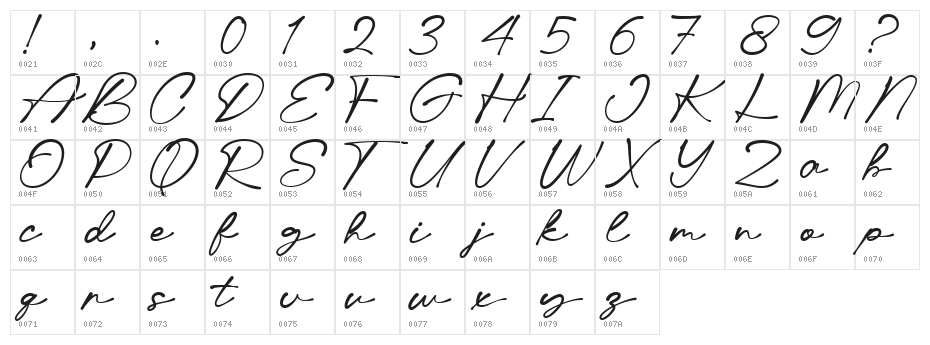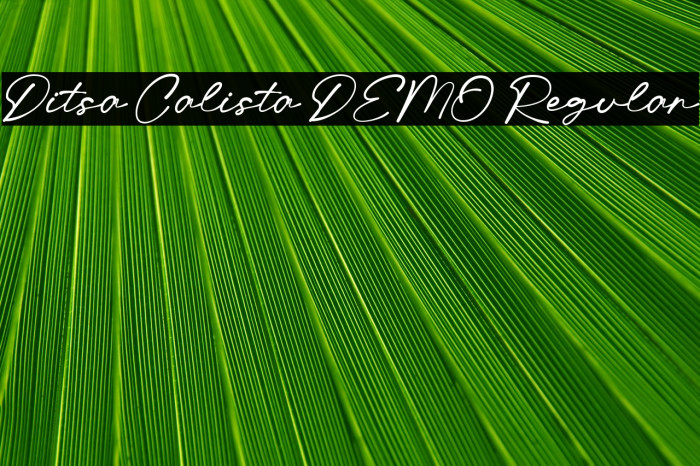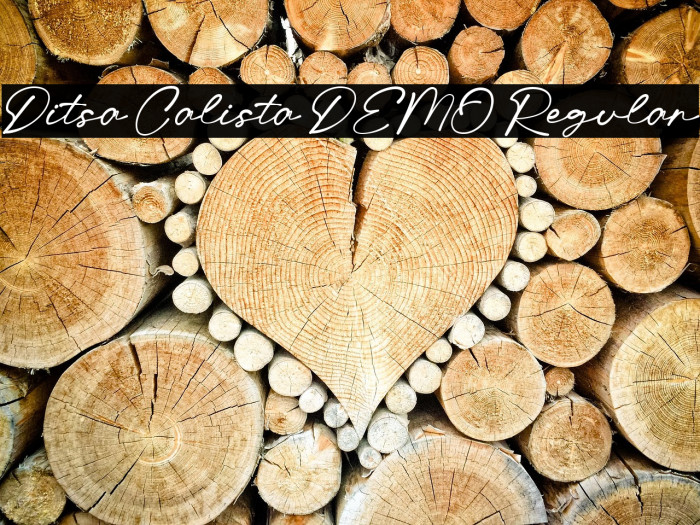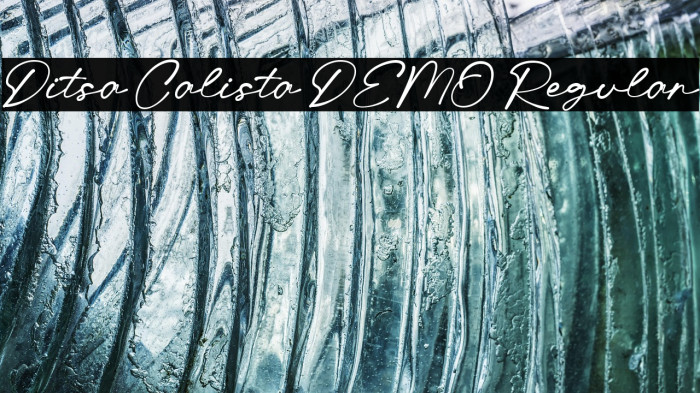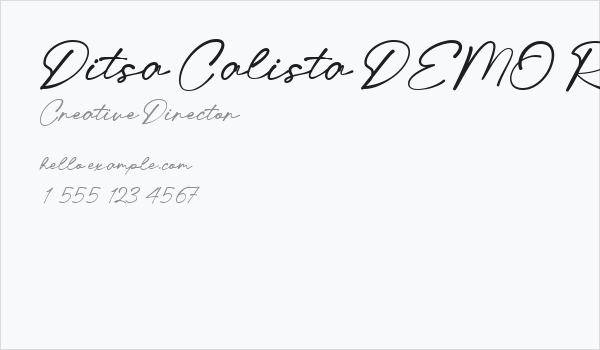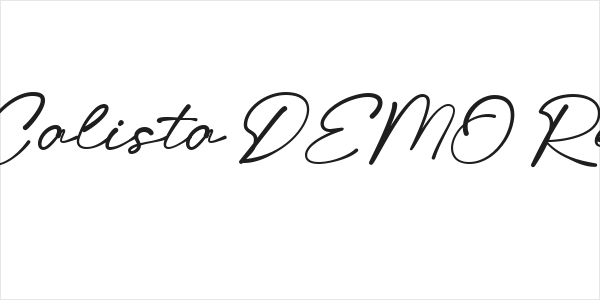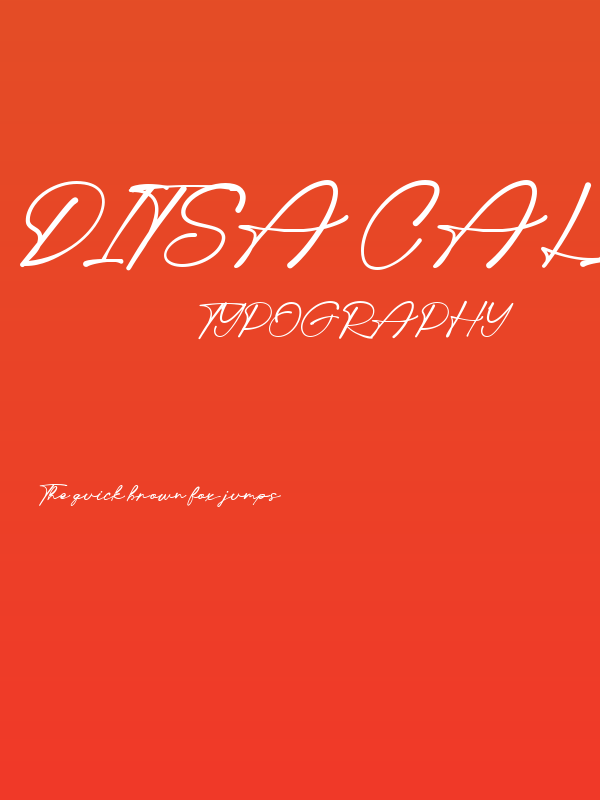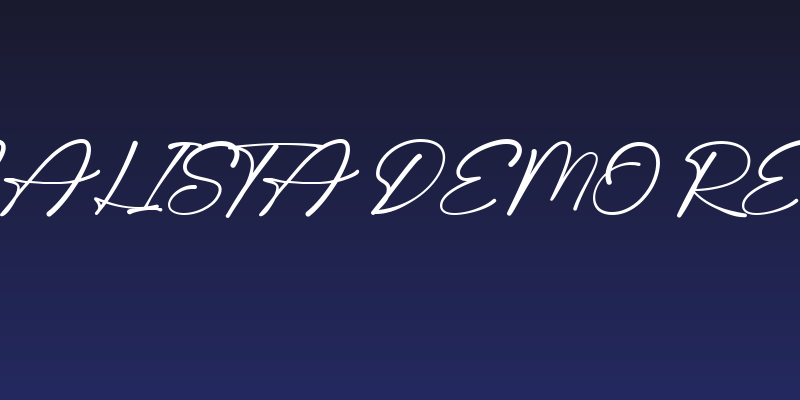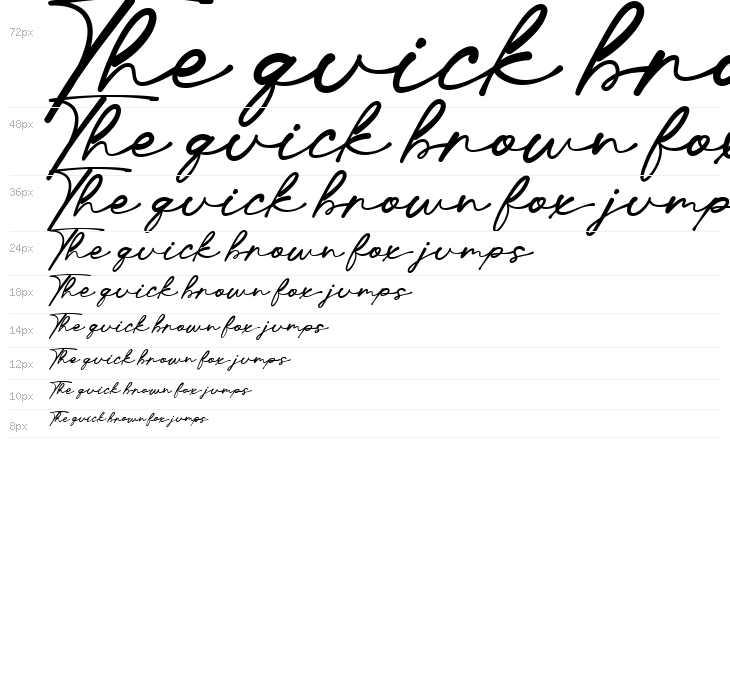
Ditsa Calista DEMO Regular Font
Ditsa Calista DEMO Regular Description
This font exudes a graceful and elegant handwritten style, characterized by its fluid and connected letterforms. The uppercase letters are bold and sweeping, with a slight slant that adds a dynamic feel. The lowercase letters maintain a consistent flow, enhancing readability while retaining a personal touch. Numbers are crafted with the same fluidity, ensuring they blend seamlessly with the alphabet. The special characters are thoughtfully designed, complementing the overall aesthetic. This font is perfect for projects that require a personal, yet sophisticated touch.
Overall StyleElegant
Use CaseLogos, Invitations, Personal Branding
Proposed ProjectsIdeal for wedding invitations, personal branding, greeting cards, and elegant packaging designs.